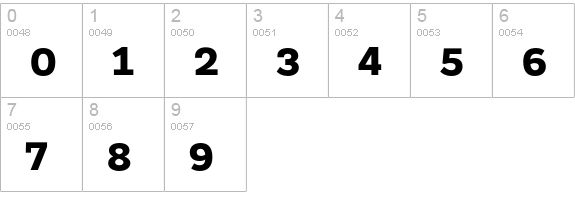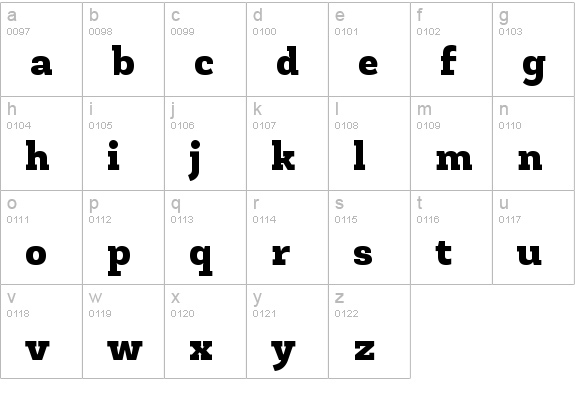
Newslab Black is a maximum-weight, dramatic variant in the Newslab typeface family \xE2\x80\x94 well suited to maximum-impact headlines, posters, and packaging.
Newslab Black font is a modern and versatile typeface that exudes elegance and sophistication. With its bold and impactful design, this font is perfect for making a statement in headlines, titles, and branding materials. The sharp lines and clean curves of Newslab Black make it easily readable while still commanding attention. This stylish font is ideal for a wide range of design projects, from editorial layouts to posters and packaging. Its timeless appeal and versatility make it a must-have addition to any designer's toolkit. The best part? Newslab Black font is available for free download at FontsMarket.com, allowing you to effortlessly enhance your projects with this stunning typeface. Don't miss out on the opportunity to elevate your designs with the sleek and professional look of Newslab Black font.